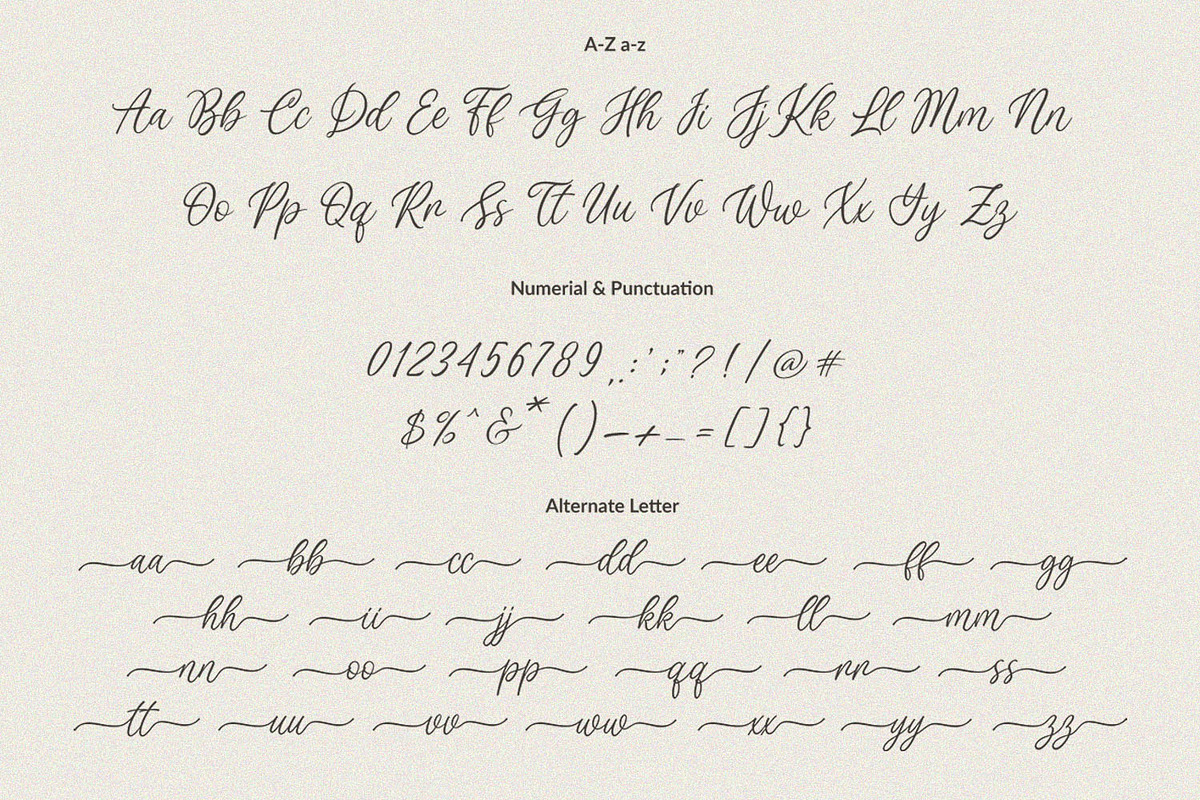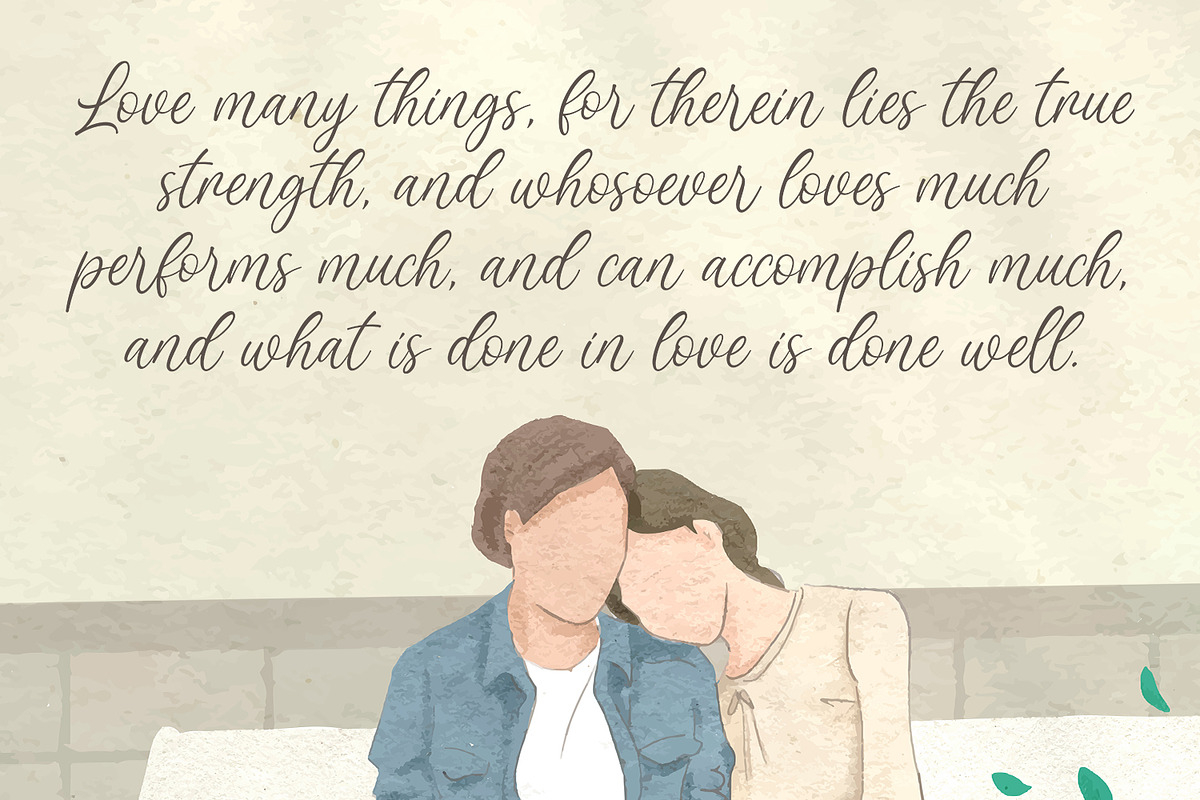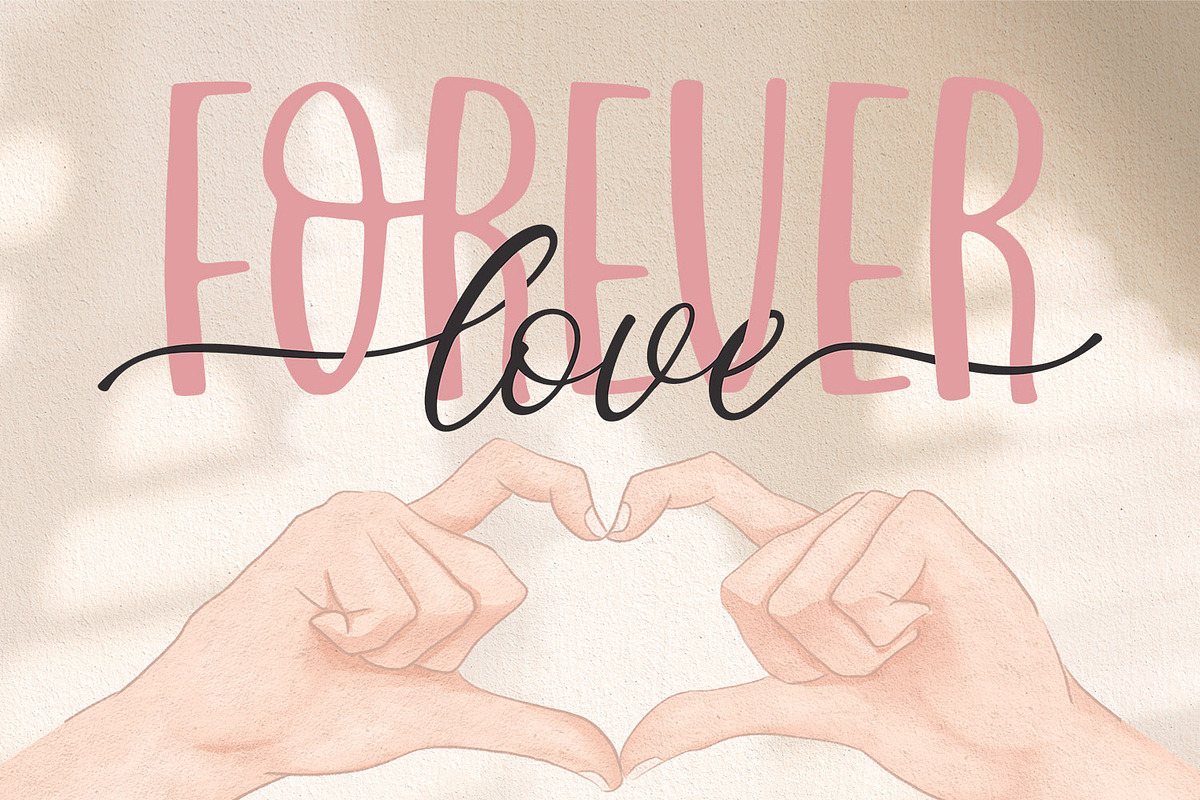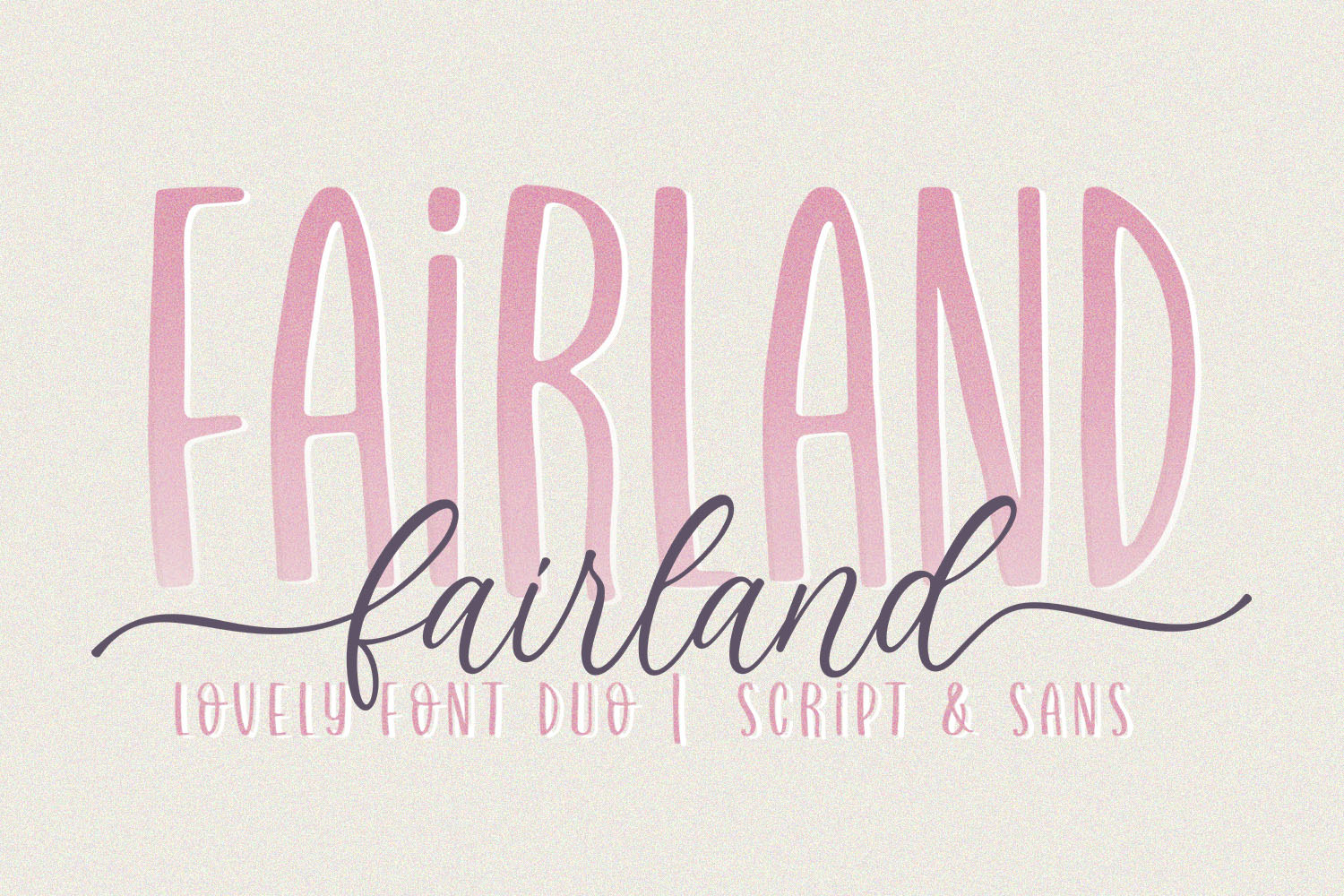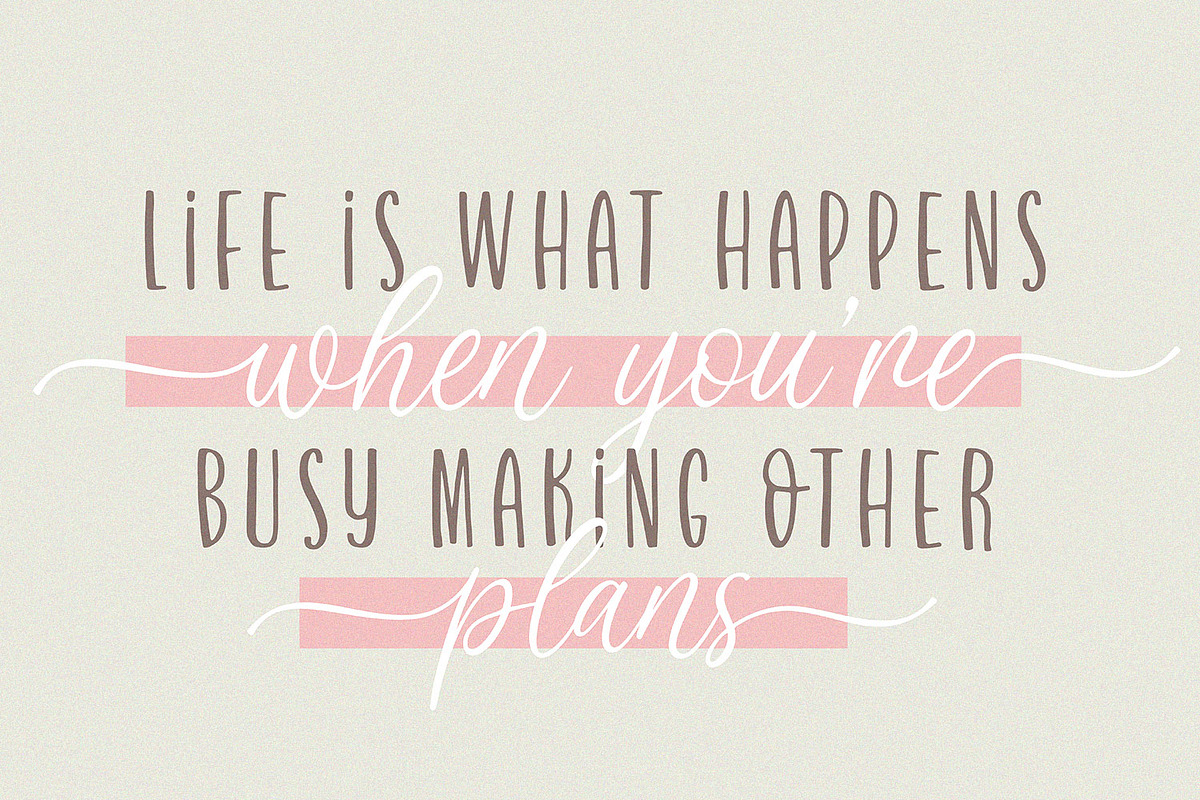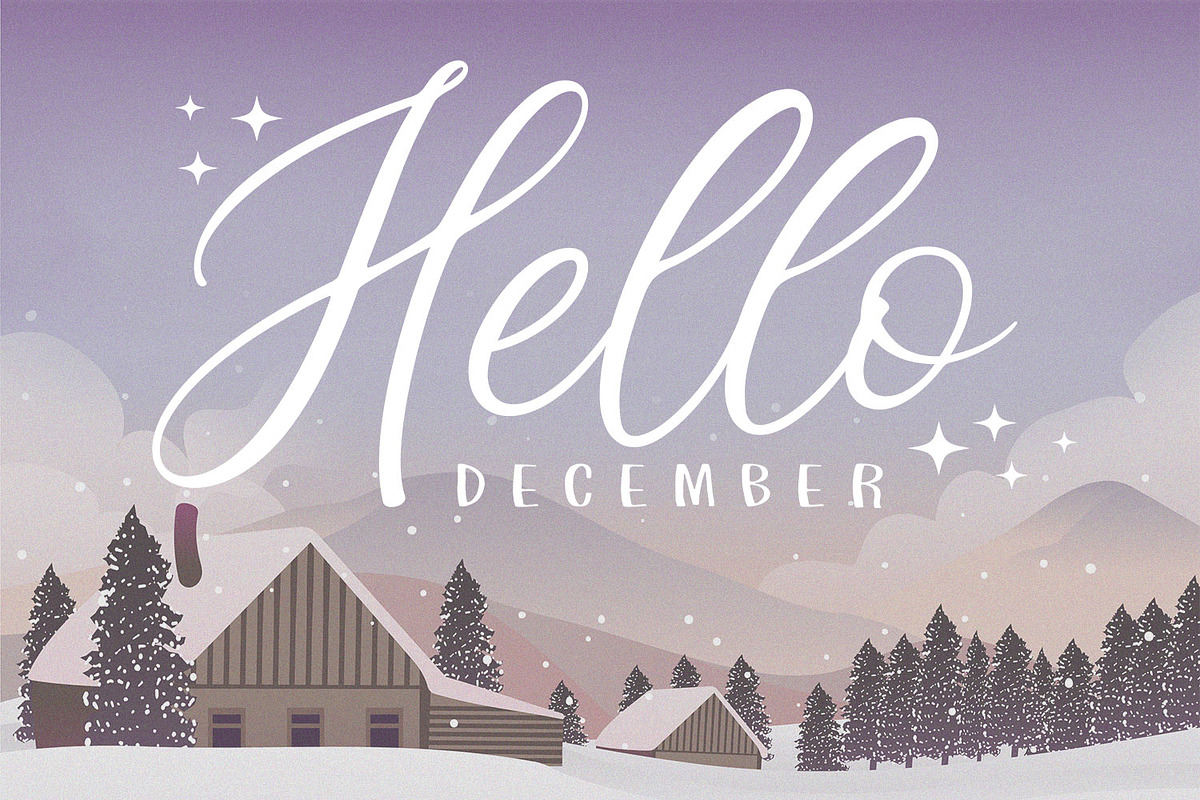
Fairland - Sweet Font Duo
Fairland is a duo-styled handwritten font that feels equally charming and delicate. This font is PUA encoded which means you can access all of the glyphs and swashes with ease!
- Alternate Letter